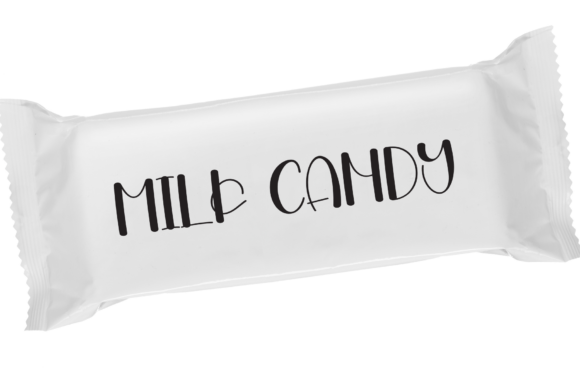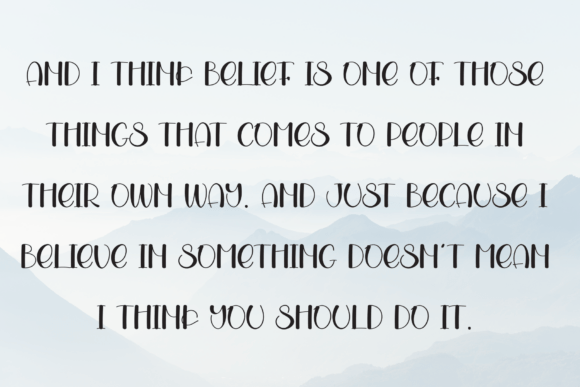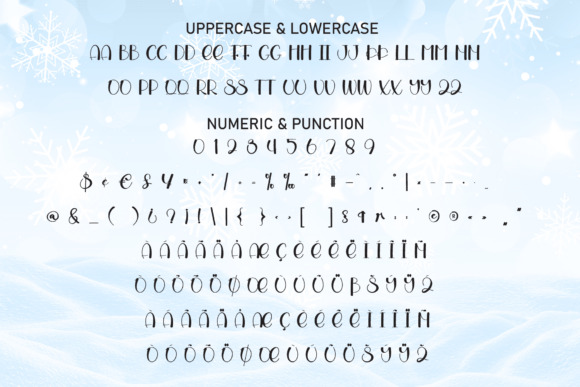
Introduction to Snow Background Font
Have you ever sat down with a blank canvas, a cup of coffee, and a spark of inspiration, waiting to bring your creative project to life? That’s exactly the moment I had when I stumbled upon the enchanting Snow Background Font.
This captivating display font is more than just a pretty face – it’s a design resource that adds a touch of magic to any project. With its soft charm and playful elegance, it’s the perfect companion for wedding invitations, cards, or any design that needs a dash of whimsy. And the best part? It’s available for free download, complete with a transparent background, making it a high-quality asset for any designer.
Whether you’re a seasoned pro or a design newbie, the Snow Background Font is a valuable addition to your toolkit. Its warmth and friendliness are sure to enchant your audience and leave them wanting more – and that’s exactly what makes it so valuable for designers like you.
Key Features of Snow Background Font
- High-quality design resource for creative projects, perfect for adding a touch of winter wonderland to your work.
- Unique snowflake design elements that can be used separately or combined for added creativity.
Honest Review: Snow Background Font
As a designer, I’m always on the lookout for high-quality design resources to elevate my creative projects. Recently, I stumbled upon the Snow Background Font, and I’m excited to share my honest review with you.
What works well: ✨ The font is available for free download, which is a major plus for designers on a budget. The transparent background is also a great feature, allowing me to easily layer it over other design elements. The high-quality design is crisp and clean, making it perfect for a variety of creative projects.
Limitations: ⚠️ While the font is a great addition to any design library, it’s not ideal for projects that require a bold, attention-grabbing font. Additionally, the design may not be suitable for use in extremely small sizes.
Overall impression: I’m impressed with the Snow Background Font’s simplicity and versatility. It’s a great design resource for designers who need a high-quality, transparent background font for their creative projects. While it may have some limitations, it’s an excellent choice for many design applications.
Snow Background Font
Experiment with different font sizes and colors to create a unique look. Use the font in combination with other design elements, such as images or shapes, to create a visually appealing design. Don’t be afraid to try new things and push the boundaries of what’s possible with the Snow Background Font.
The Snow Background Font is perfect for creating winter-themed designs, such as holiday cards, invitations, or social media graphics. It’s also great for creating high-quality designs for presentations, brochures, or marketing materials.